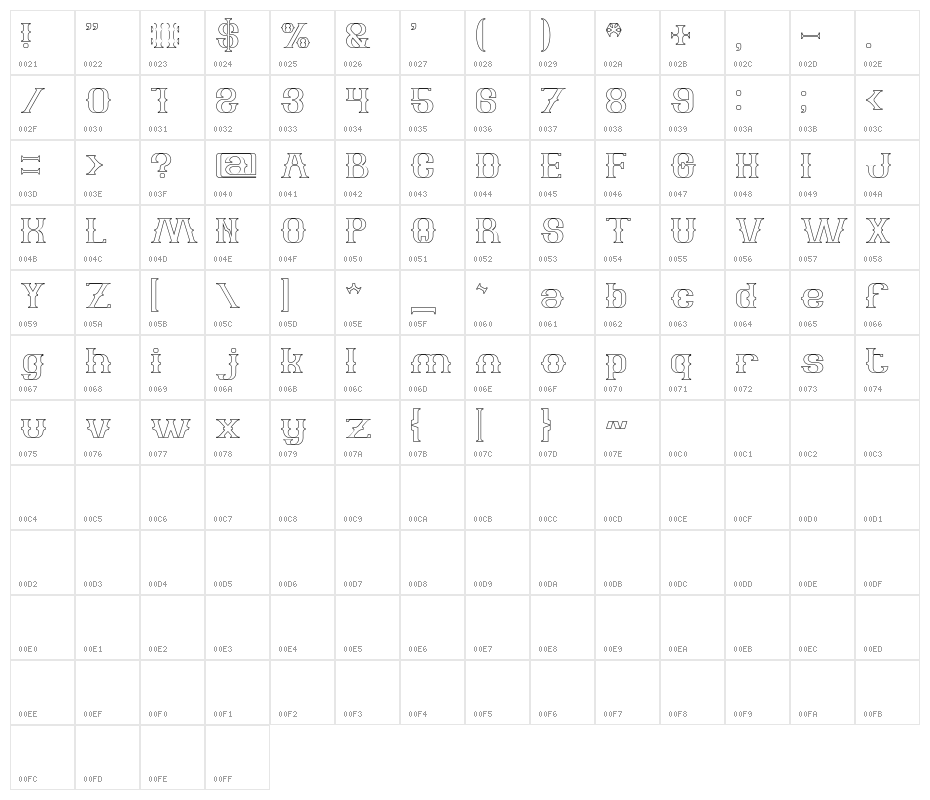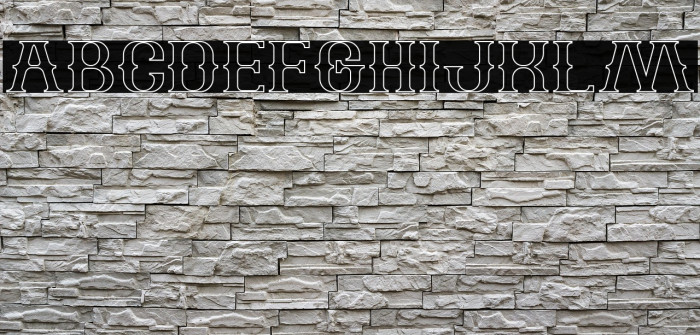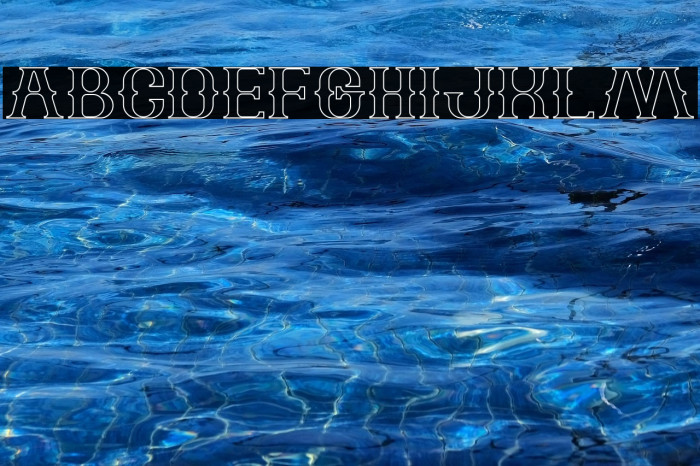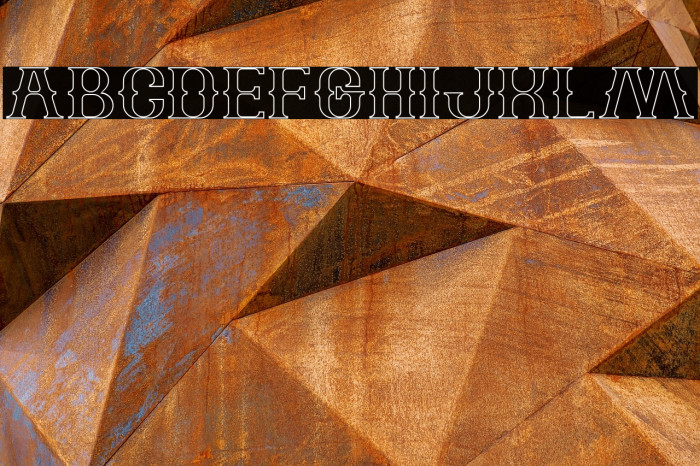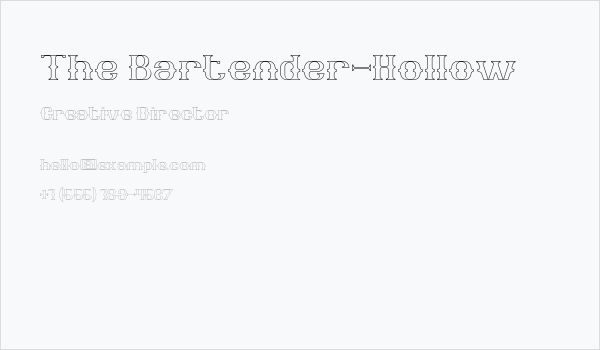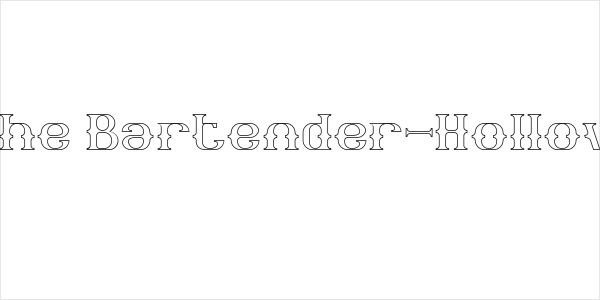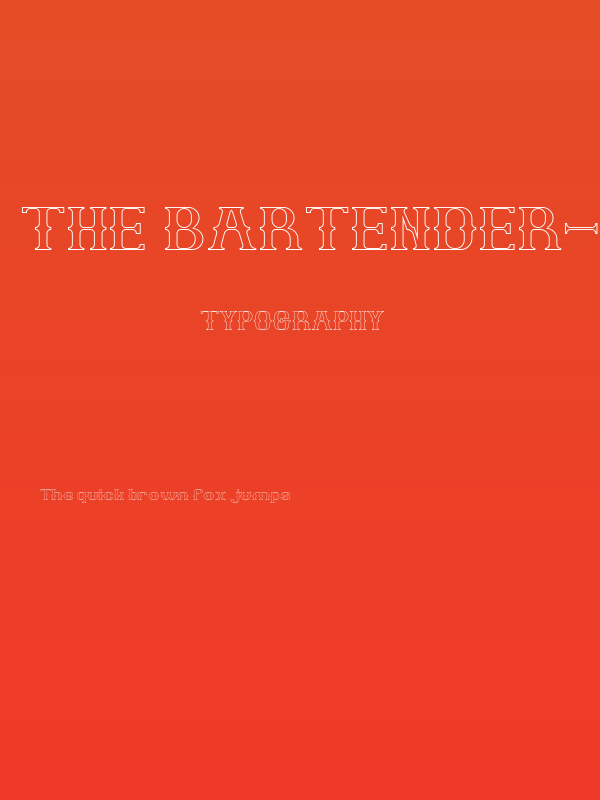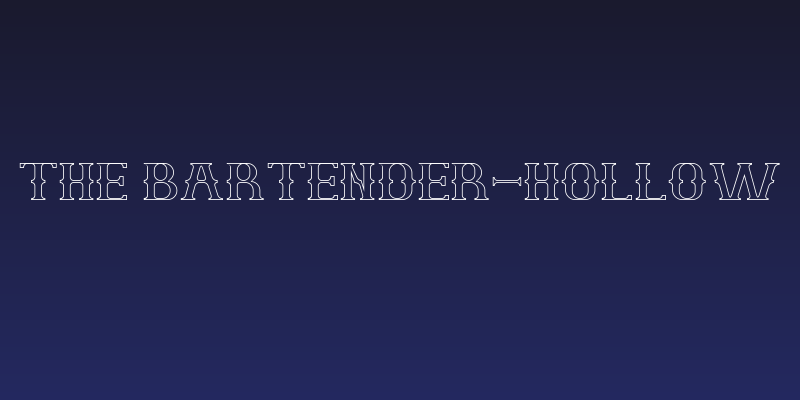
The Bartender-Hollow Font
The Bartender-Hollow Description
This font features a unique hollow design with a decorative flair, characterized by its outlined letters and intricate detailing. The uppercase and lowercase letters maintain a consistent style, with sharp angles and a slightly condensed form. The numerals and special characters follow the same hollow pattern, adding a cohesive look to the entire set. The font's distinct style makes it stand out, offering a modern twist on traditional serif fonts. Its hollow nature gives it a lightweight appearance, making it suitable for creative and artistic projects where a bold yet airy look is desired.